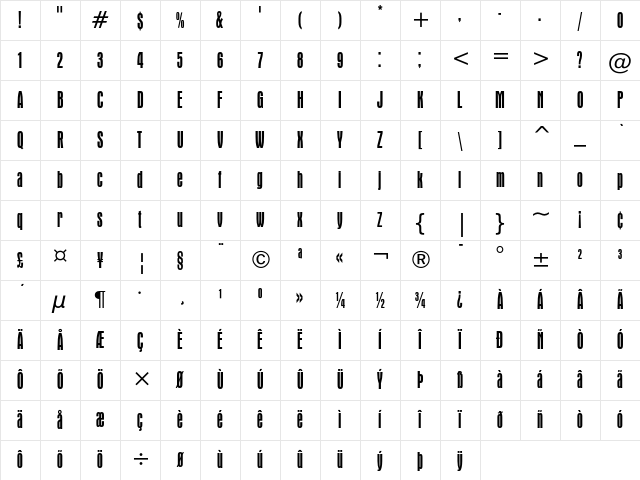
Aurora Condensed
Style: Condensed
Aurora Family
Aurora Condensed
Complete Aurora Condensed glyph index. Displaying only characters natively supported by Aurora Condensed font.
Design Context for Aurora
Aurora is a composed and adaptable typeface that performs quietly and consistently across a wide range of design contexts. Its narrow stance lets it pack a punch even in space-constrained designs.